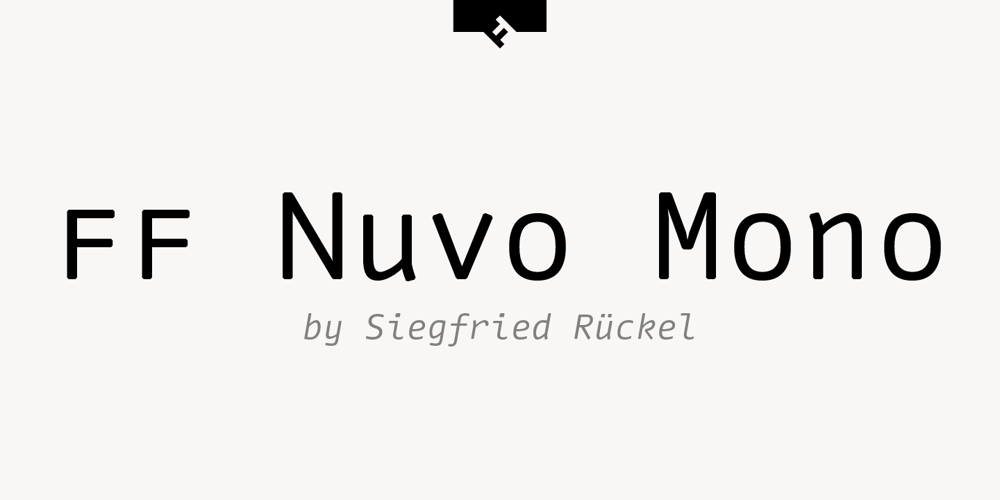
FF Nuvo Mono Font Family was designed by Siegfried Rückel and published by FontFont. FF Nuvo Mono contains 10 styles and family package options. German type designer Siegfried Rückel created this sans FontFont in 2011. The family has 10 weights, ranging from Regular to Black (including italics) and is ideally suited for film and tv, logo, branding and creative industries, software and gaming as well as web and screen design. FF Nuvo Mono provides advanced typographical support with features such as ligatures, small capitals, alternate characters, case-sensitive forms, super- and subscript characters, and stylistic alternates. It comes with tabular oldstyle, proportional oldstyle, and tabular lining figures. This FontFont is a member of the FF Nuvo super family, which also includes FF Nuvo.